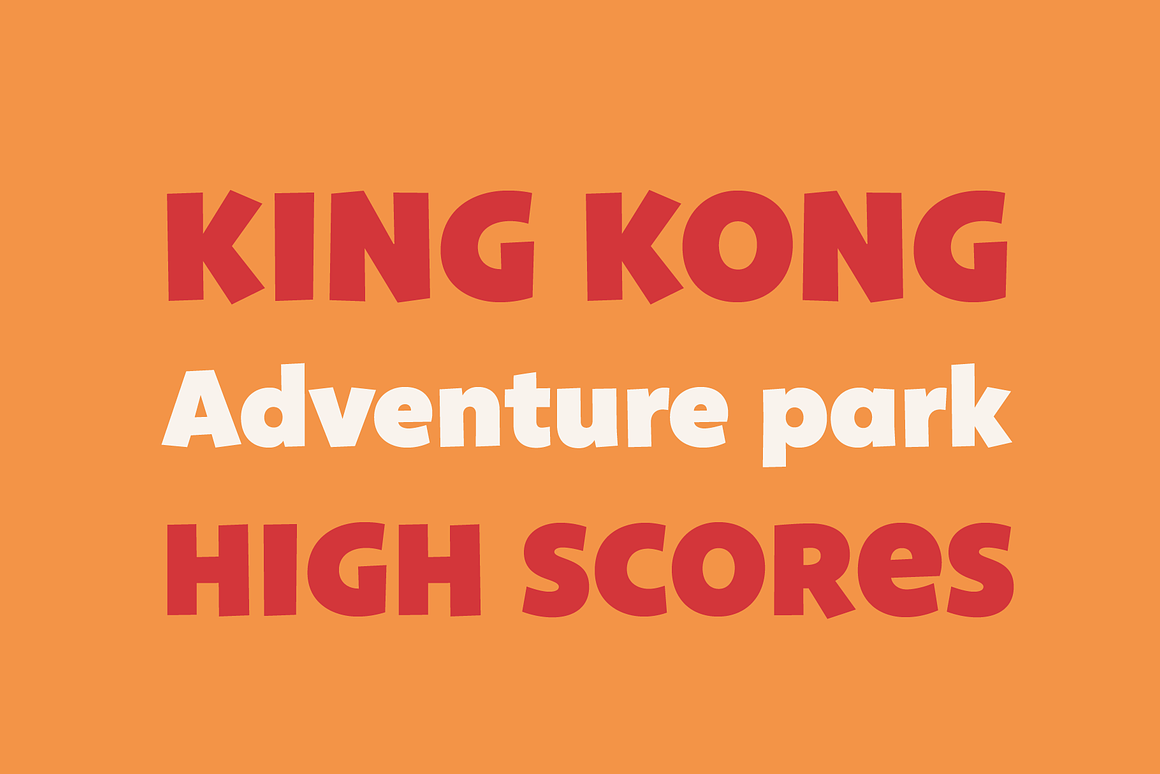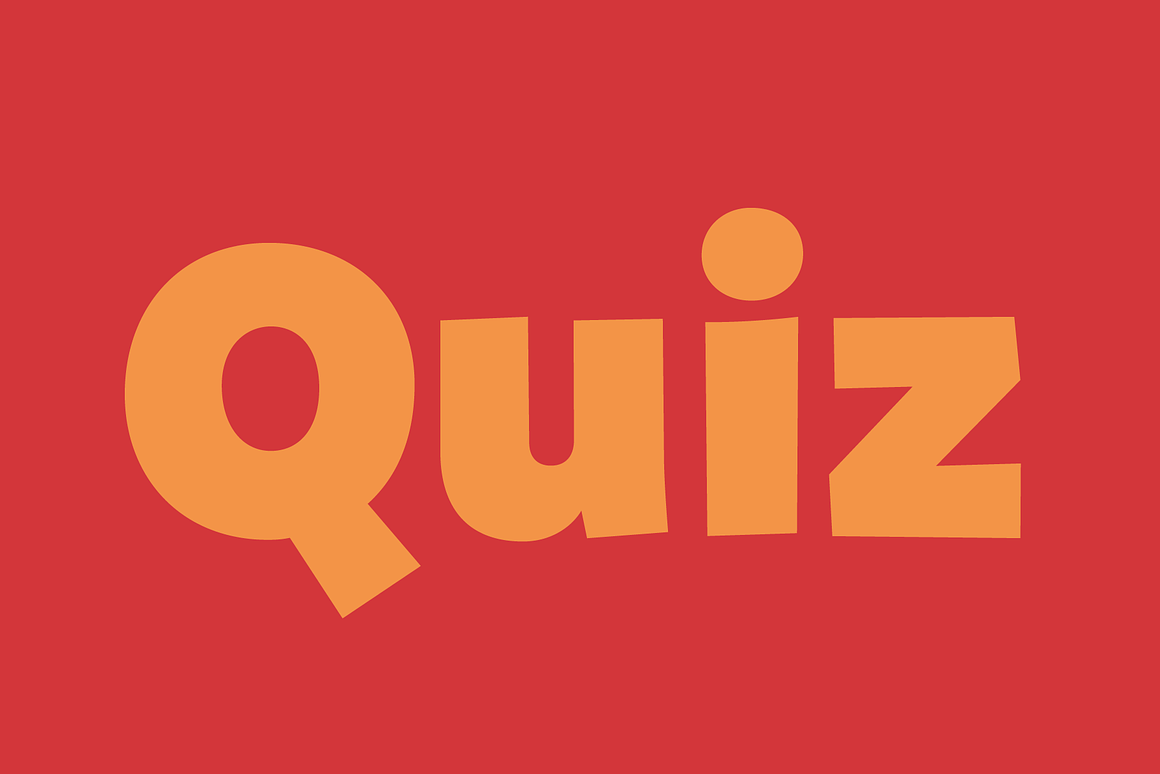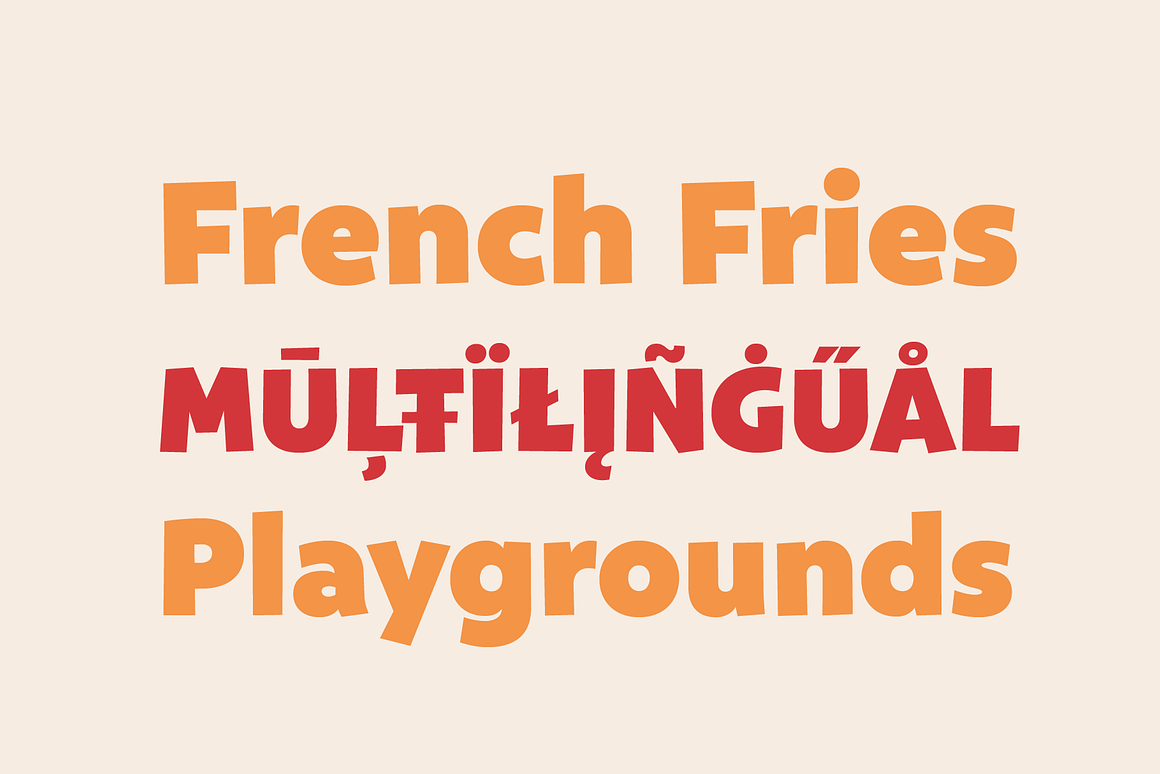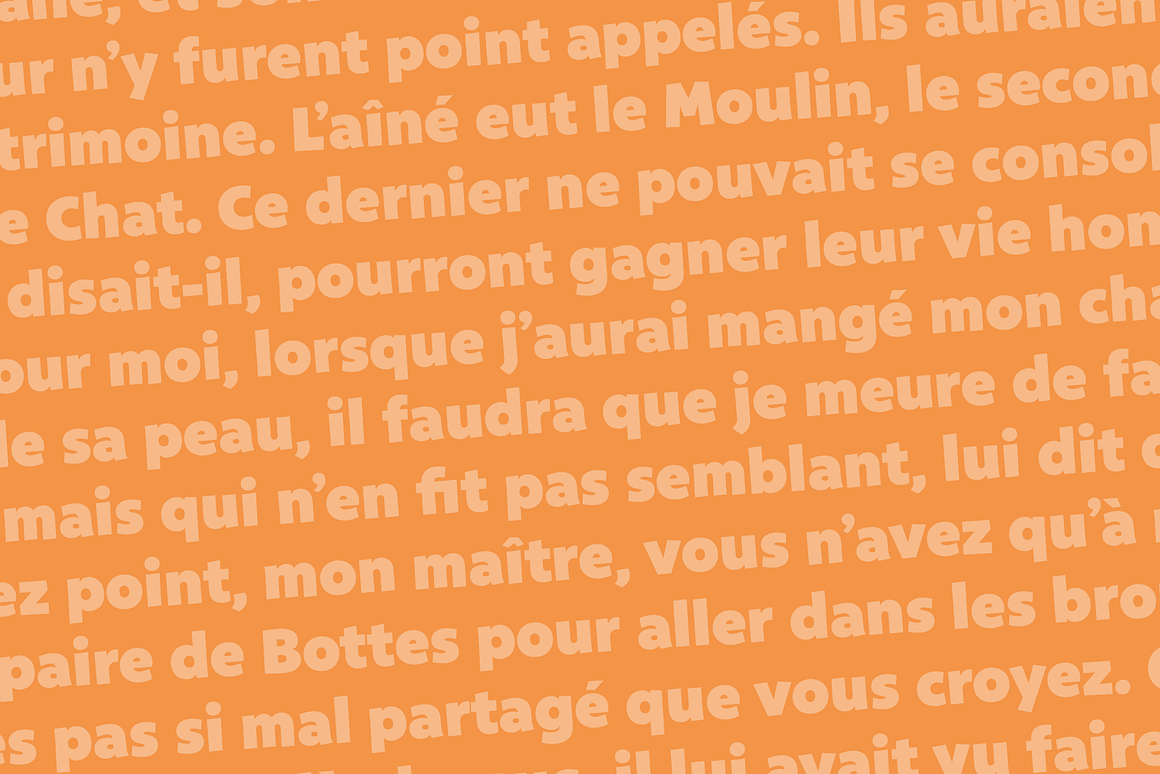
Bango Pro Font
This Bango Pro Font is perfect for explosive action movie titles, dynamic comic book designs, energetic youth marketing, powerful impact graphics, vibrant gaming interfaces, high-energy event promotions, bold sports branding, exciting entertainment campaigns, dramatic poster designs, and attention-grabbing advertising materials.
What makes this Bango Pro Font exciting is its explosive impact that captures the sudden burst of energy and dynamic force of powerful visual statements. The font features bold letterforms with explosive characteristics that convey immediate impact, energetic excitement, and powerful presence. Its dynamic character and high-impact design make it ideal for brands seeking to communicate explosive energy, dynamic action, and powerful engagement in entertainment and action-oriented markets.
The Bango Pro Font family includes regular, bold, and black weights with explosive alternates, dynamic variants, and impact-driven flourishes. This comprehensive high-energy font family provides designers with powerful typographic tools to create explosive compositions while maintaining the dynamic character essential for action entertainment and high-impact brand communications.
Entertainment companies and action brands consistently choose Bango Pro Font Free Download for projects requiring explosive appeal and dynamic impact. This font's distinctive energetic character perfectly captures the powerful excitement and immediate impact that resonate with audiences who appreciate action entertainment, dynamic experiences, and brands that embody explosive energy and powerful engagement.
The explosive construction of Bango Pro Font showcases powerfully designed letterforms with dynamic proportions that ensure maximum impact across all action applications. Its energetic appearance and explosive presence create unforgettable impressions while maintaining the readability necessary for effective action communication and high-impact marketing materials.
Professional designers appreciate how Bango Pro Font brings immediate explosive energy and dynamic authority to brand communications. The font's powerful nature allows organizations to communicate high-impact excitement and explosive engagement while maintaining the professional quality necessary for effective positioning in action entertainment and dynamic marketing environments.
The dynamic appeal of Bango Pro Font makes it particularly effective for brands emphasizing explosive action, powerful impact, and energetic engagement. Its bold character resonates strongly with audiences who appreciate action-packed entertainment, dynamic experiences, and brands that represent explosive creativity and powerful visual impact.
Whether developing campaigns for action entertainment properties or creating materials for high-energy sporting events, Bango Pro Font Free Download provides the explosive typographic foundation that dynamic brands need to communicate their powerful impact, energetic excitement, and the explosive excellence that defines action entertainment and high-impact brand achievement.